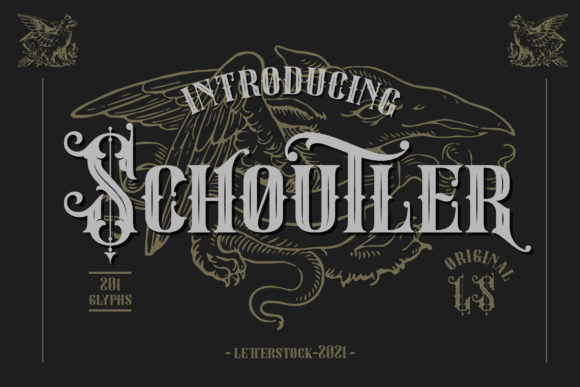
Unleash the audacity of expression with Schoutler, the blackletter font that commands attention and leaves a lasting impression. Its bold strokes and assertive presence make it a captivating choice for crafting impactful designs that demand to be seen.
With Schoutler, you hold the key to unlocking a world of creative possibilities. Let your imagination soar as you craft striking posters that resonate with power and intrigue, or create eye-catching logos that leave a lasting imprint on your audience.
Step into a realm where creativity reigns supreme and let Schoutler be your fearless companion. Its unwavering strength and unwavering boldness will transform your designs into masterpieces that transcend the ordinary.
Transform your design projects into bold statements with Schoutler. Its blackletter prowess adds a touch of timeless elegance, while its contemporary edge ensures relevance in today's dynamic design landscape.
Make your designs roar with authority and capture the spotlight. Schoutler is more than just a font; it's an emblem of your creative prowess, a testament to your unwavering dedication to creating designs that leave an indelible mark.
Harness the power of Schoutler and unlock the full potential of your design endeavors. Let its bold strokes and commanding presence elevate your creations to new heights, leaving your audience in awe and admiration.